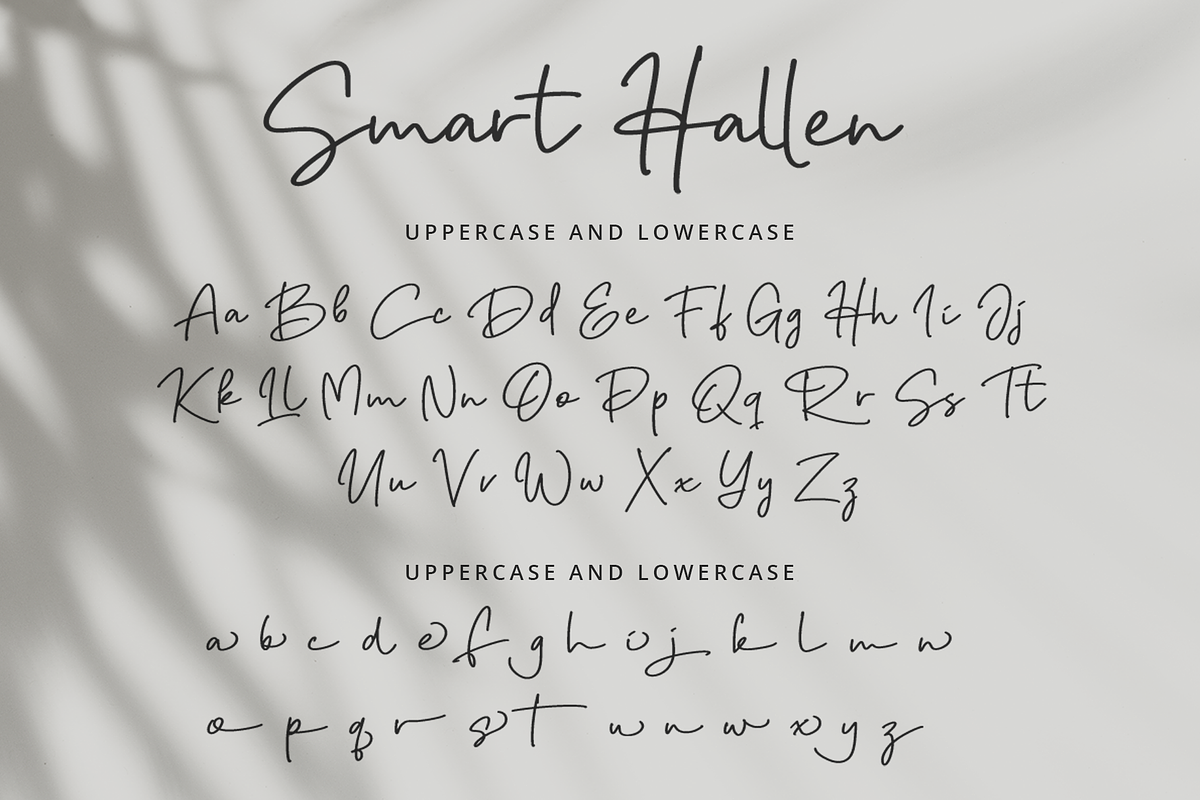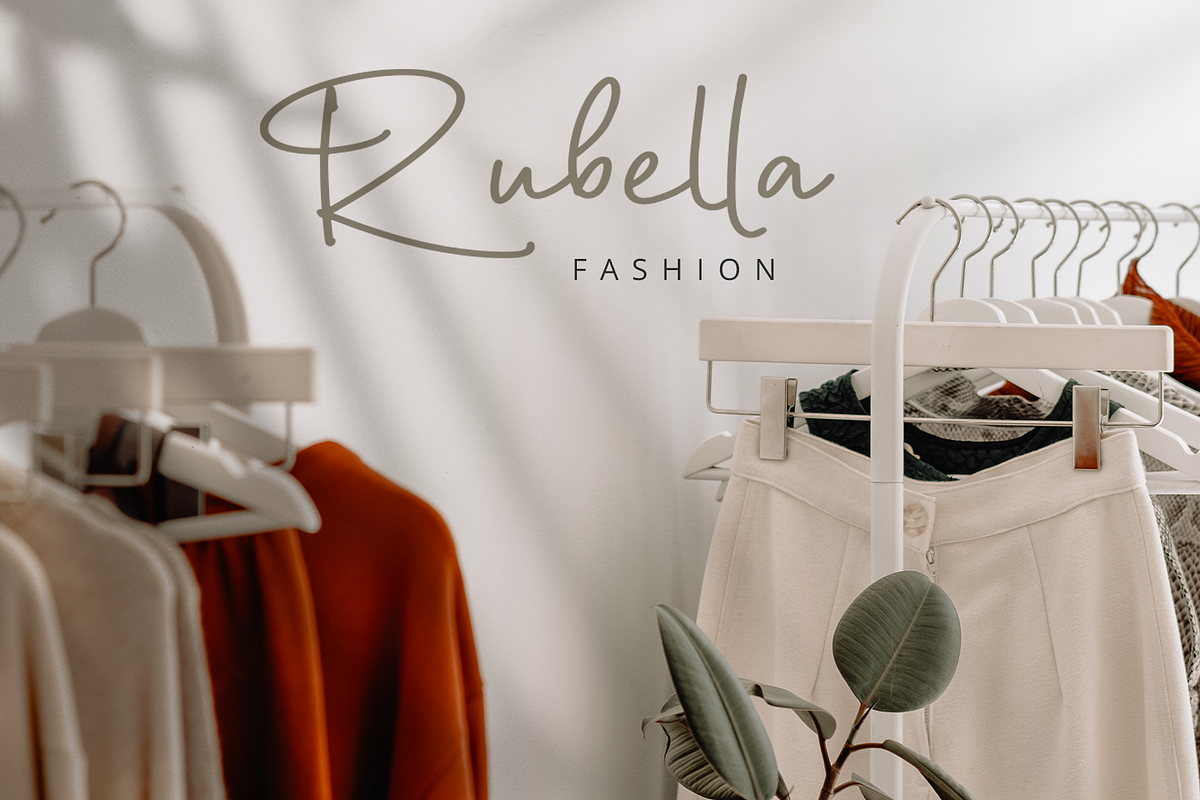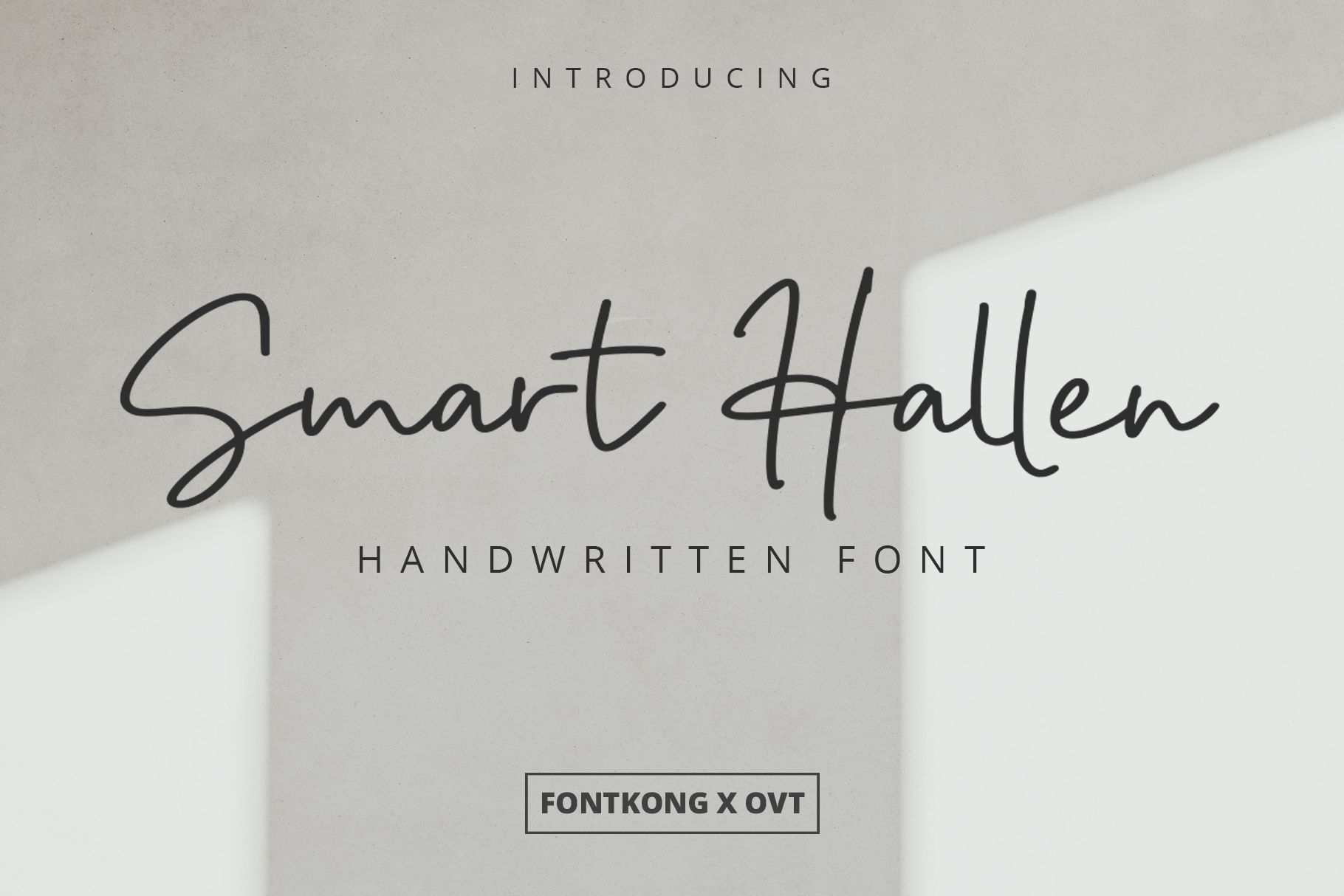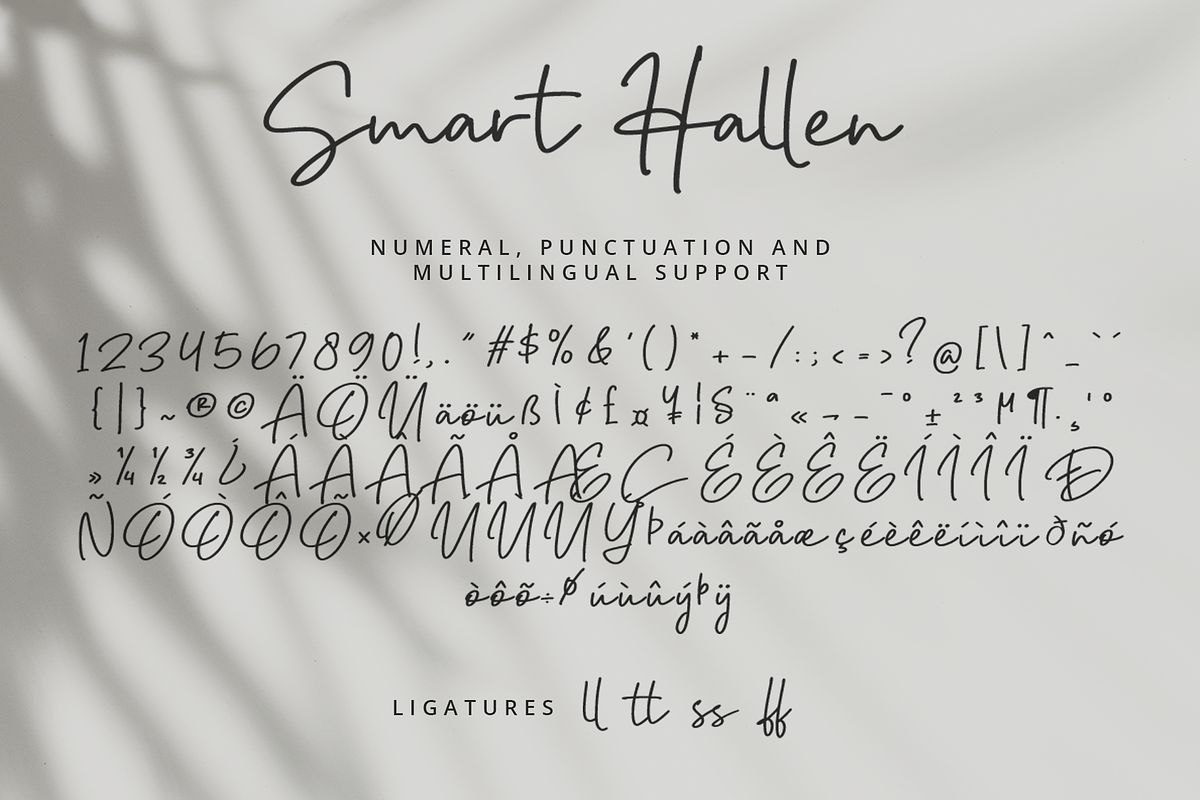
Smart Hallen - Handwritten Font
Introducing "Smart Hallen," a beautifully crafted handwritten font that adds a personal and elegant touch to any project. With its graceful strokes and authentic feel, "Smart Hallen" is perfect for designs that require a human touch and a sense of warmth.
"Smart Hallen" features a full set of upper and lowercase letters, numerals, punctuation, and extensive multilingual support. This versatile font is ideal for wedding invitations, greeting cards, logos, branding materials, social media posts, and more.
Designed to mimic the fluidity and natural variations of real handwriting, "Smart Hallen" brings a unique and charming quality to your designs. Its subtle irregularities and smooth curves make it stand out, ensuring that your text looks both sophisticated and approachable.
"Smart Hallen" is the perfect choice for designers looking to add an elegant handwritten font to their toolkit.